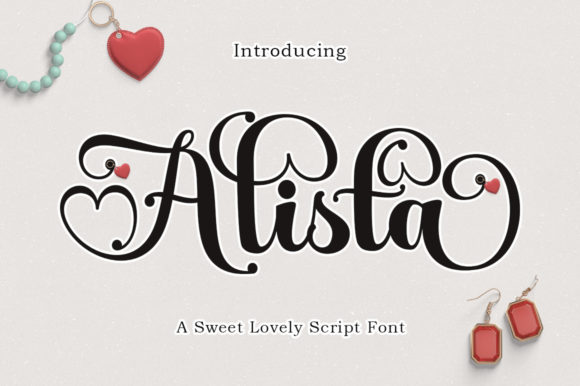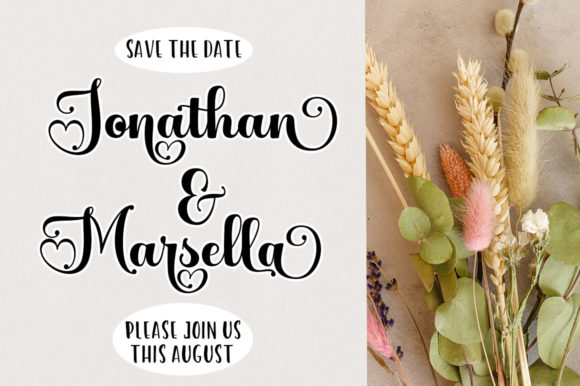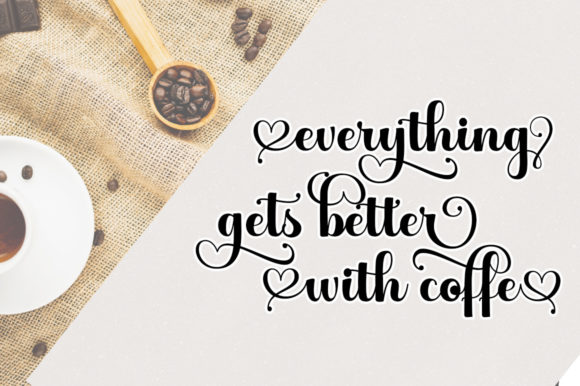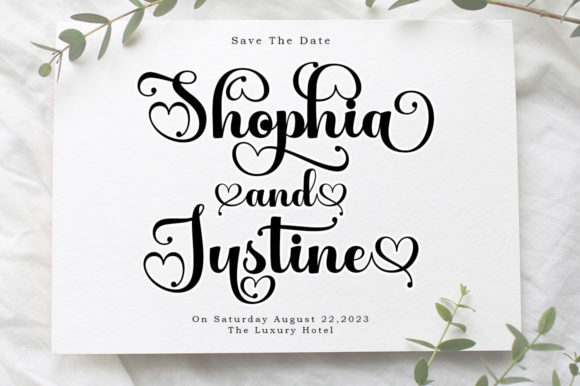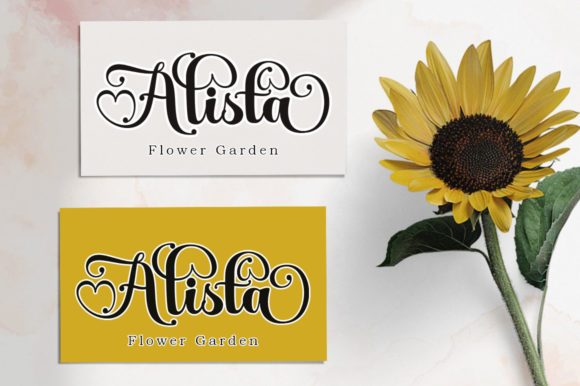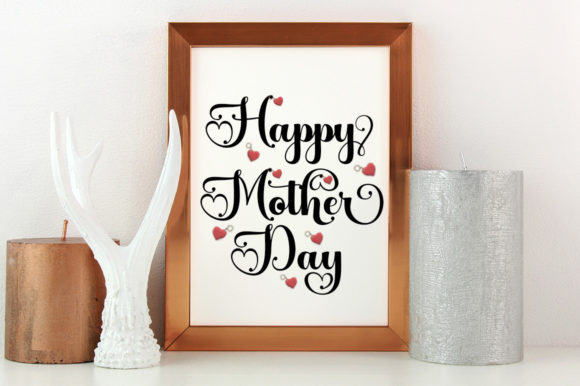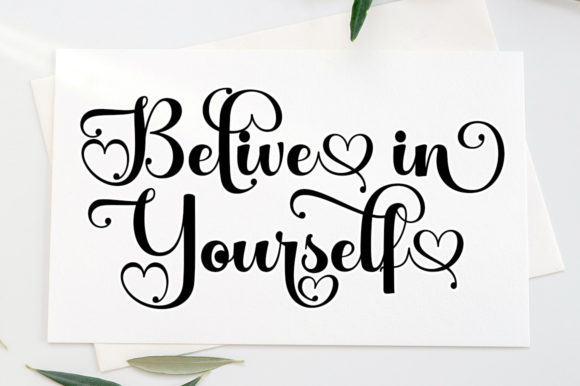
Alista Script Font
About Alista Script Font
Alista Script is a stylish and delicate script font. It looks stunning on wedding invitations, thank you cards, quotes, greeting cards, logos, business cards and every other design which needs a handwritten touch. This font is PUA encoded which means you can access all of the glyphs and swashes with ease!